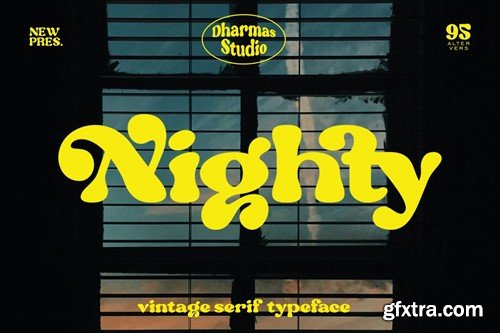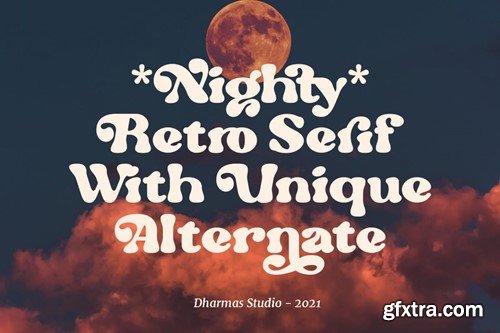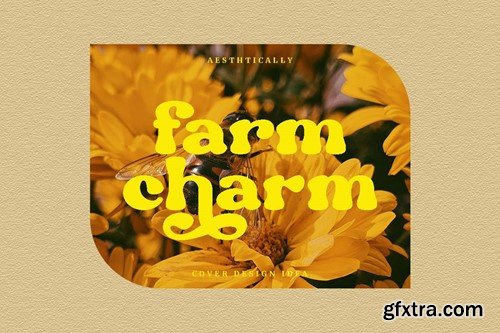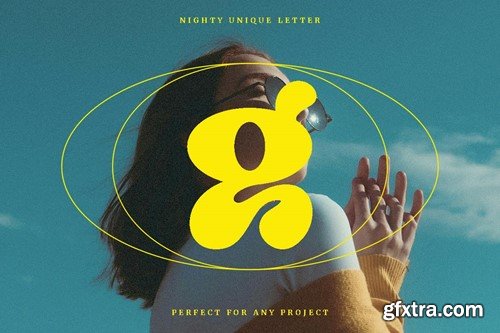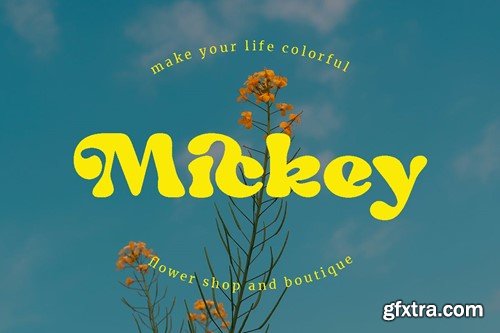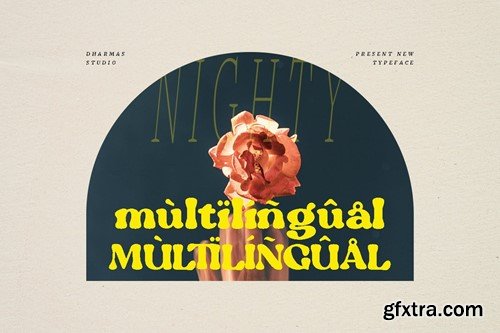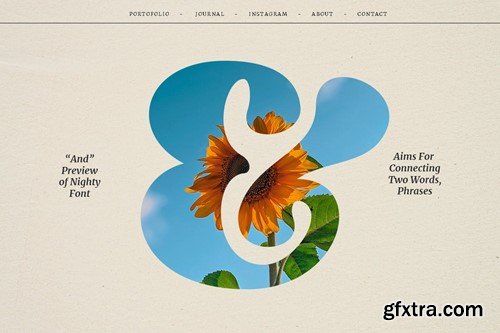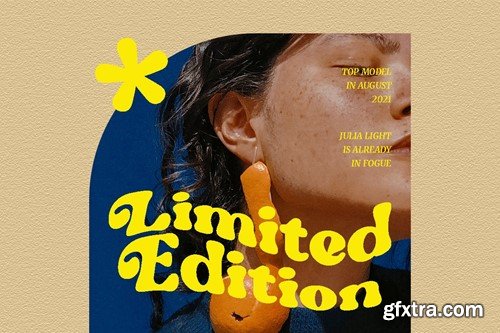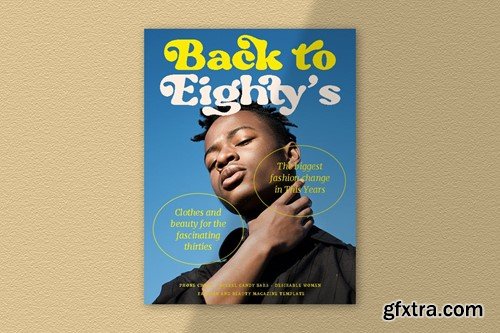
夜夜 - 现代复古字体 SRSZ2CC
Nighty - Modern Retro Font SRSZ2CC
Nighty - Modern Retro Font
Inspired by vintage magazines around the 70s, this font was born for all of you, Nighty!
Nighty is a display typeface that says we’re here to nostalgia! It brings back the 70s vibes with a groovy, retro, and unique typeface
This font fits perfectly into those nostalgic mood boards and vintage logos. It comes with 95 unique alternate and ligature that to give any project a unique vintage look,
• Has 95 alternate and ligatures
• Unique letterforms
• Multilingual
Dharmas Studio